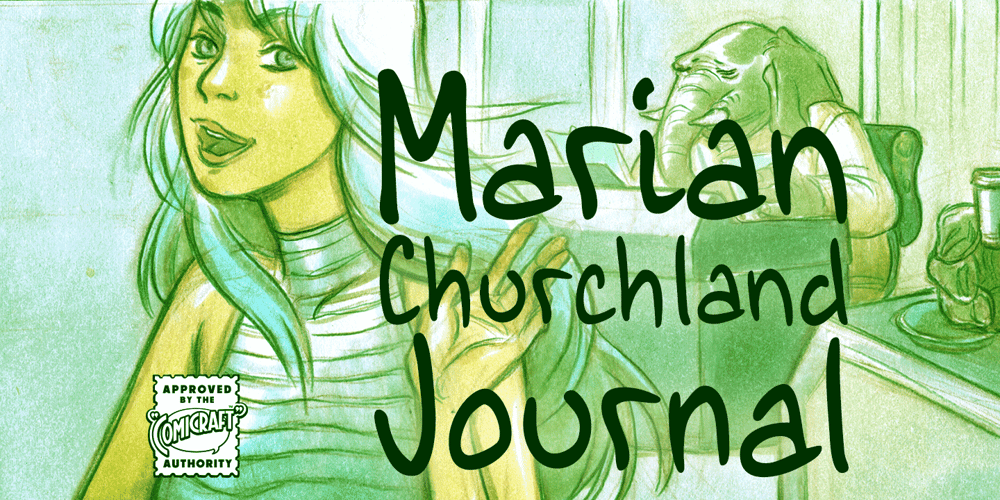
Marian Churchland Journal Font Family was designed by John Roshell, Marian Churchland and published by Comicraft. Marian Churchland Journal contains 1 styles and family package options. Tall, thin and elegant, Marian Churchland’s font is very much like her.. and is now available from those awfully nice chaps at Comicraft to allow you to pretend that you are too!Artwork by Marian Churchland from https://www.comixology.com/Elephantmen-20/digital-comic/7060 target=_blank>Elephantmen #20